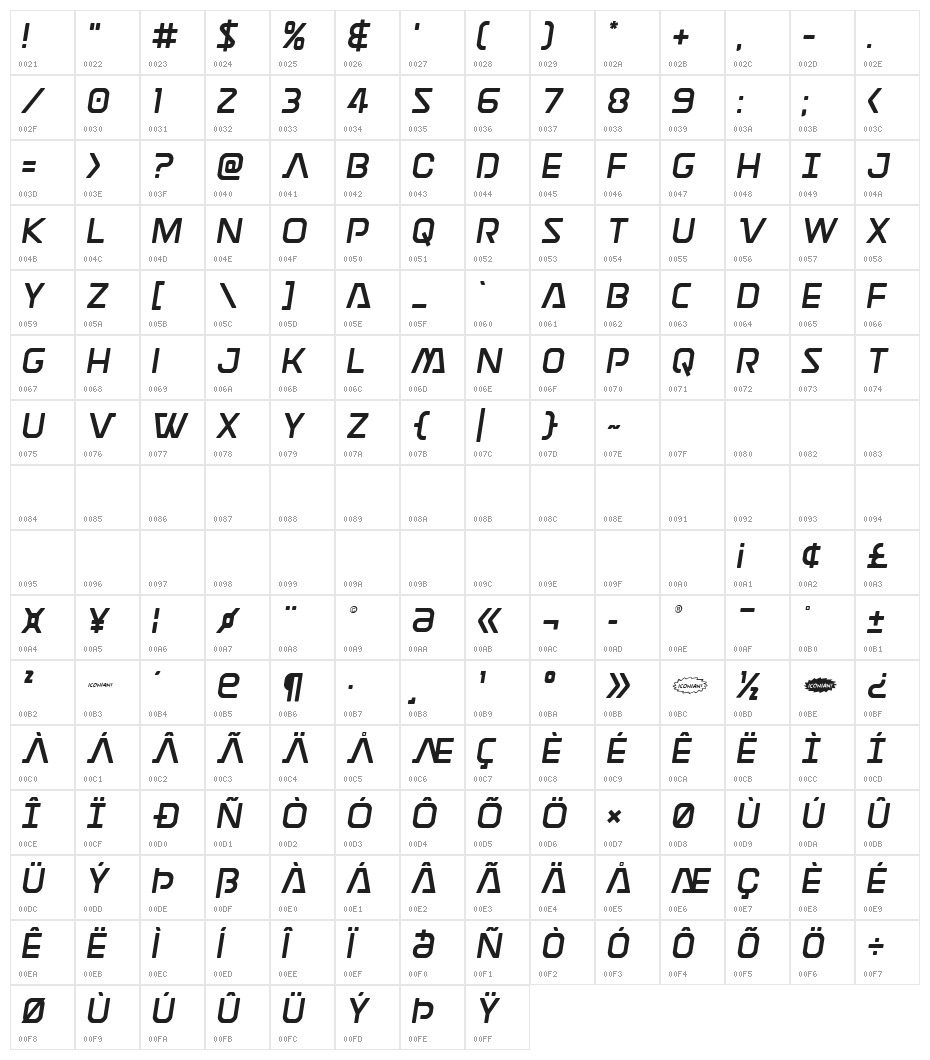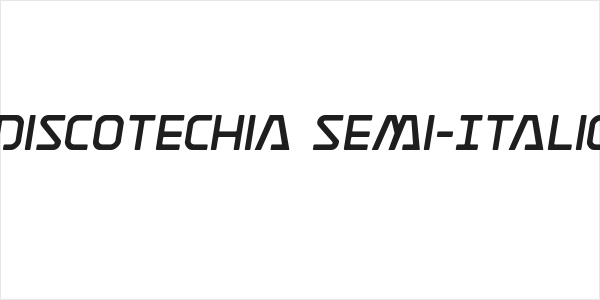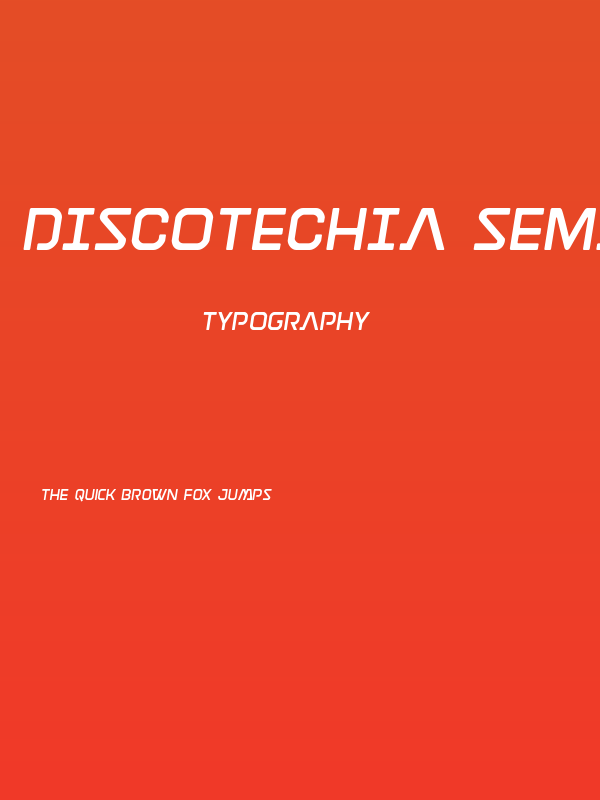
Discotechia Semi-Italic Font
Discotechia Semi-Italic Description
This font features a modern, geometric style with a semi-italic slant, giving it a dynamic and forward-moving appearance. The characters are bold and slightly condensed, with a consistent stroke width that provides a clean and uniform look. The angular design of the letters, particularly noticeable in the 'A', 'M', and 'N', adds a futuristic and tech-inspired feel. The numerals and special characters maintain the same stylistic approach, ensuring cohesion across all elements. This font is ideal for projects that require a contemporary and energetic vibe.
| Proposed Projects | Ideal for tech branding, futuristic posters, and dynamic web design. |